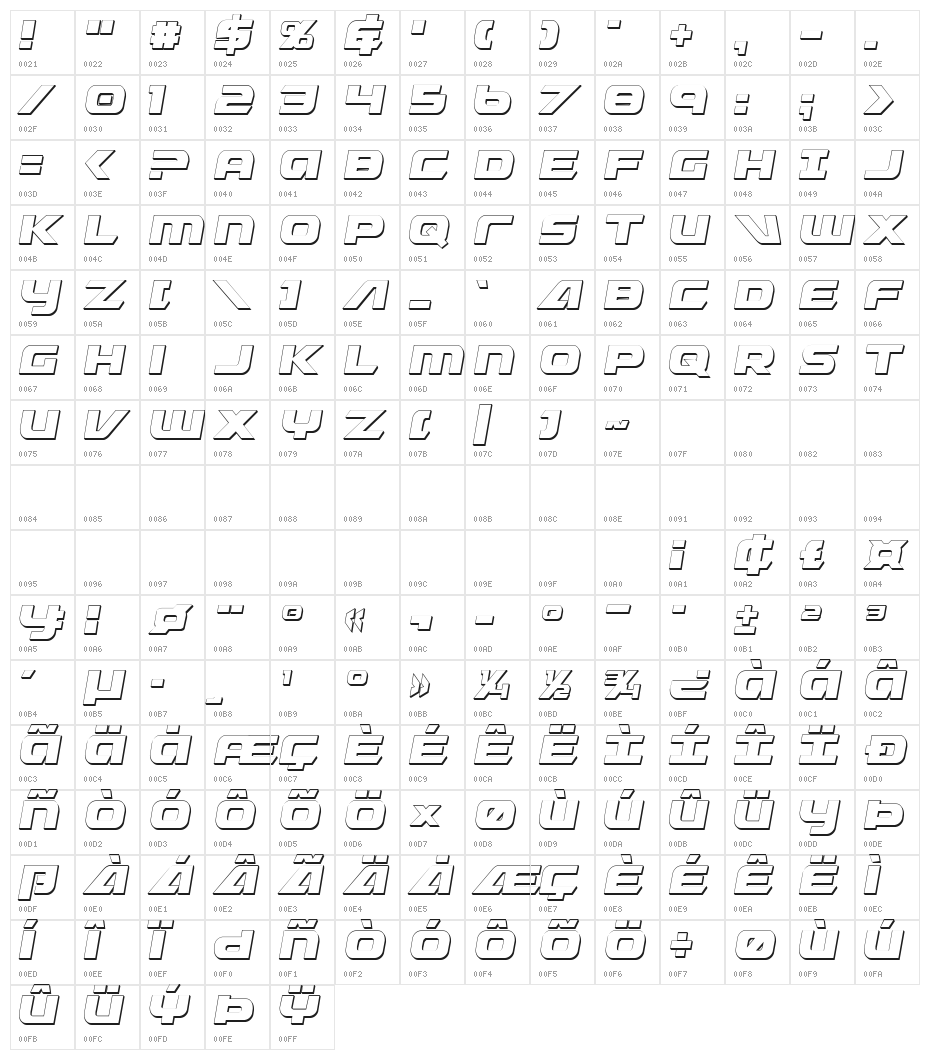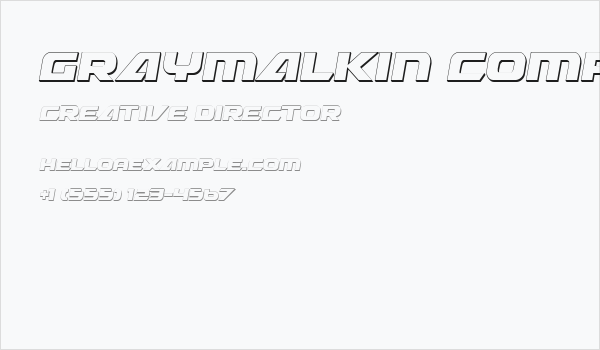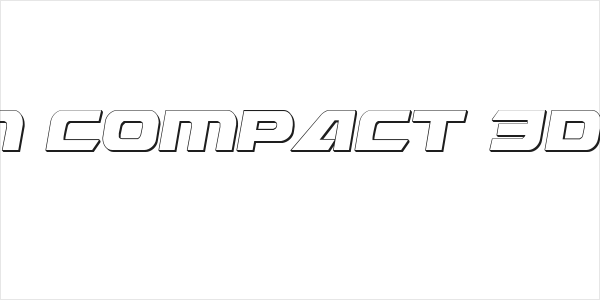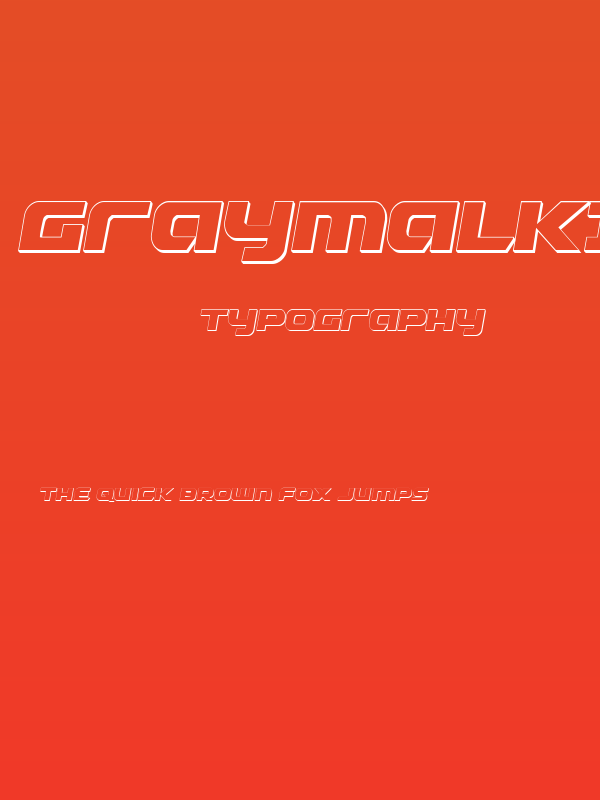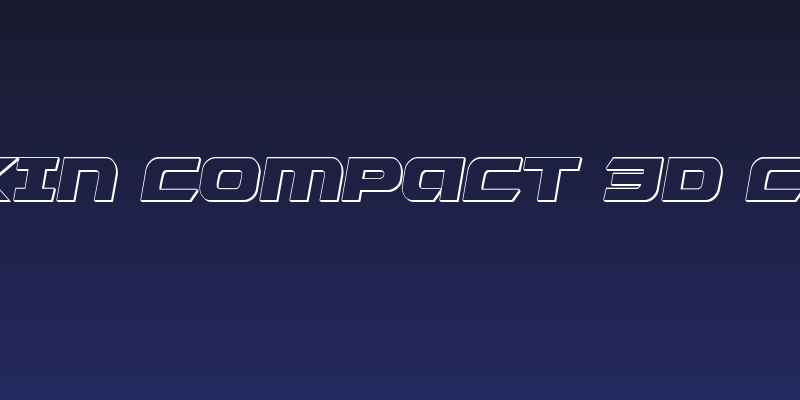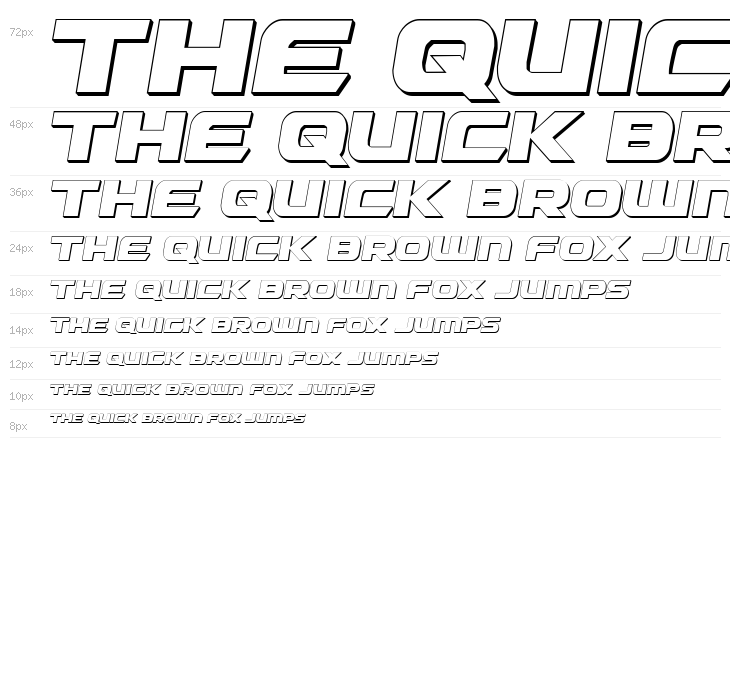
Graymalkin Compact 3D Condensed Font
This font features a bold, three-dimensional appearance with a condensed structure, giving it a modern and dynamic look. The characters are outlined, creating a sense of depth and movement. The uppercase and lowercase letters maintain a consistent style, with sharp angles and clean lines. The numerals and special characters follow the same design principles, ensuring uniformity across all glyphs. This font's unique 3D effect makes it stand out, ideal for projects that require a futuristic or tech-inspired aesthetic.
| Proposed Projects | Ideal for technology branding, video game titles, futuristic posters, and digital media. |